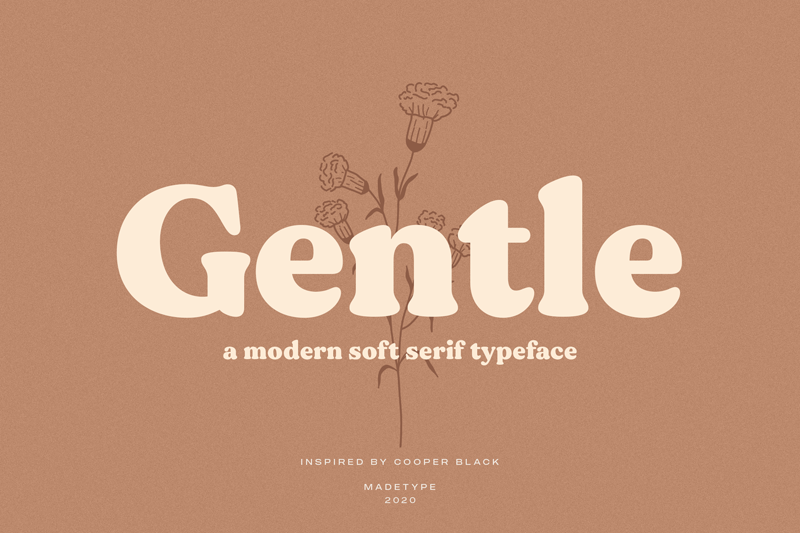
Free download MADE Gentle Font
MADE Gentle is a modern soft serif typeface. MADE Gentle will perfect for many project: fashion, magazines, logo, branding, photography, invitations, wedding invitation, quotes, blog header, poster, advertisements, postcard, book, websites, etc. Font is FREE for PERSONAL USE. Contact me mail for commercial use and questions: madetypeinfo@gmail.com ----- LICENCES FOR PERSONAL AND COMMERCIAL WORK https://www.fontspring.com/fonts/madetype https://creativemarket.com/MadeType https://www.youworkforthem.com/designer/1002/madetype/ https://crella.net/store/madetype/ ----- https://www.behance.net/madetype Email for questions: madetypeinfo@gmail.com |